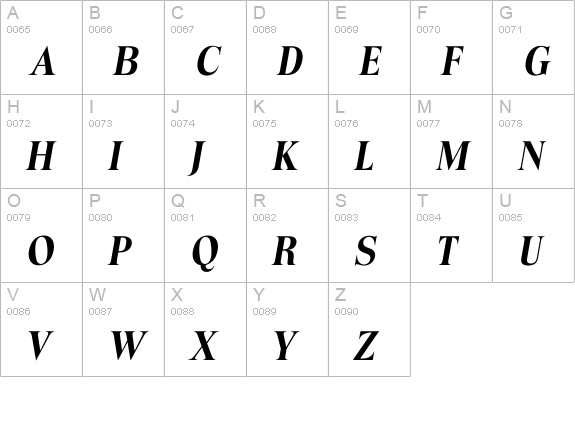
Itoledo DemiBold is a sub-bold, structured variant in the Itoledo typeface family \xE2\x80\x94 well suited to sub-headlines and emphasised passages.
Introducing Itoledo DemiBold, a sleek and versatile font that effortlessly combines elegance with modernity. With its bold and confident strokes, Itoledo DemiBold commands attention and adds a touch of sophistication to any design project. Crafted with meticulous attention to detail, Itoledo DemiBold is the perfect choice for those seeking a contemporary and striking typeface. Its strong and distinct letterforms make it ideal for headlines, logos, branding materials, packaging, and much more. Whether you're designing for print or digital platforms, Itoledo DemiBold will make your message stand out with its bold presence. What sets Itoledo DemiBold apart is not only its aesthetic appeal but also its accessibility. This font is freely available to download at FontsMarket.com, allowing designers and creatives alike to incorporate this exceptional typeface into their projects without any hassle. The freedom to access and utilize Itoledo DemiBold is a testament to its creators' commitment to making quality design resources accessible to all. With its extensive character set, Itoledo DemiBold supports multiple languages and features a wide range of typographic features, including ligatures and alternates. This versatility ensures that your design vision can be fully realized, no matter the project's requirements. Embrace the power of Itoledo DemiBold and elevate your designs to new heights. Its bold yet refined aesthetic, combined with its accessibility and versatility, makes it an invaluable asset for any design endeavor. Download Itoledo DemiBold today from FontsMarket.com and unlock a world of endless creative possibilities.